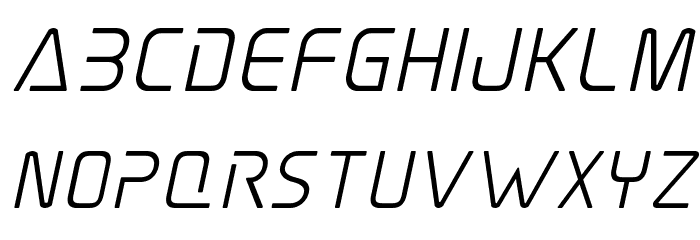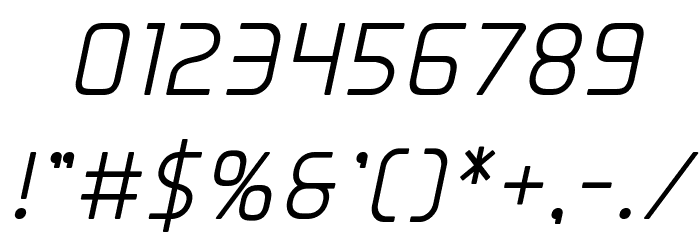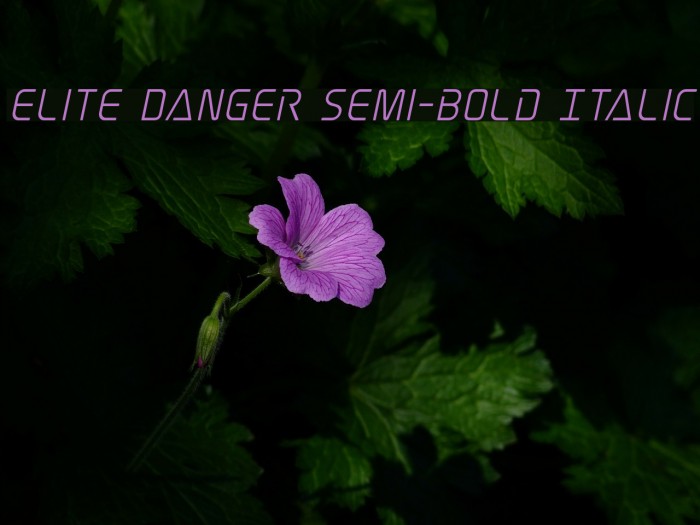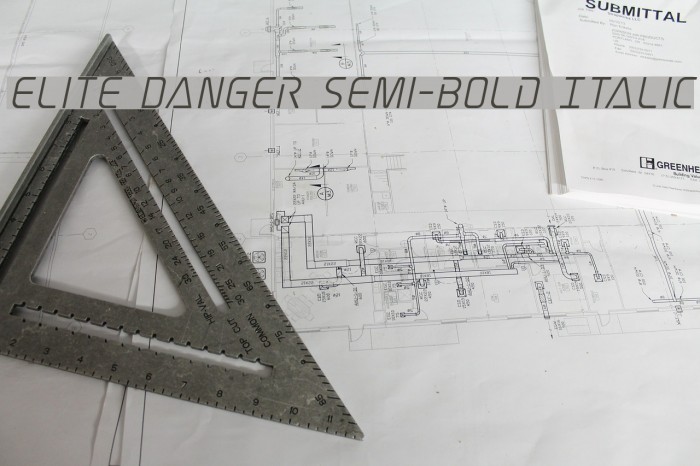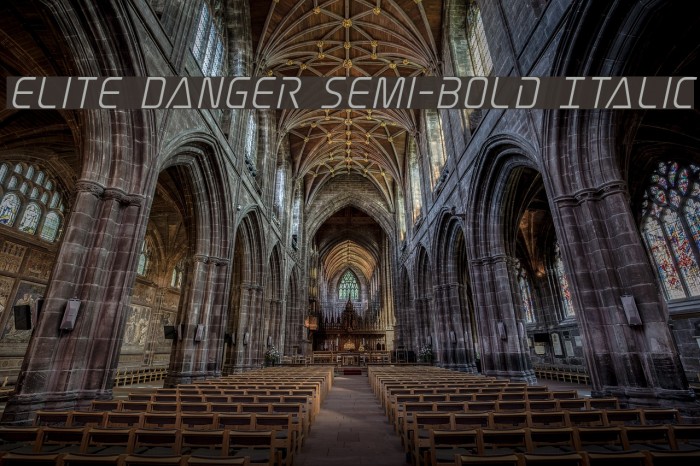
Elite Danger Semi-Bold Italic Font
This font features a sleek, modern design with a semi-bold weight and italic style. The characters are slightly condensed, offering a streamlined appearance that enhances readability while maintaining a contemporary aesthetic. The angular strokes and geometric shapes give it a futuristic feel, making it suitable for tech-oriented projects. The uniformity in stroke thickness provides a medium contrast, ensuring clarity without sacrificing style. The font includes a full set of uppercase and lowercase letters, numbers, and a variety of special characters, making it versatile for various design needs.
A sleek, modern semi-bold italic font with a futuristic and streamlined design.
- Proposed Projects: Ideal for technology branding, modern website headers, innovative product packaging, and futuristic poster designs.
- Use Case: Headlines, Logos, Branding